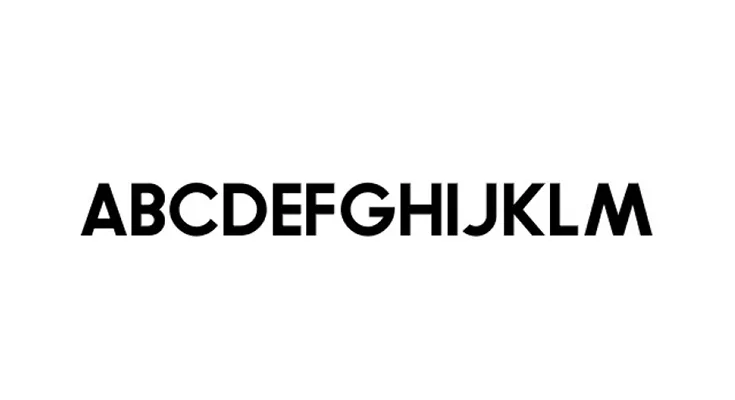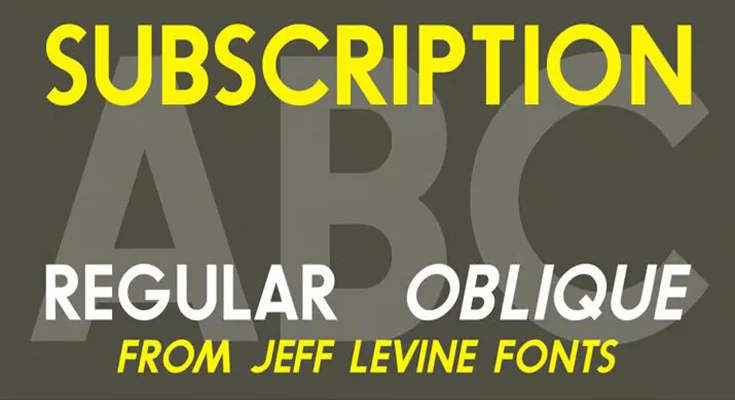
Here is another font family with a lot of versatility and possibility. Subscription JNL Font would be a great fit for other fonts or a display typeface.
This solid font was designed and released by Jeff Levine that is a prolific type designer in Florida, b. New York, 1952.
It has neat letters that can adjust to small text and large text. Simply, we can say that it can be used for headings as well as long text paragraphs.
This font family comes in two different versions including regular and oblique versions. This is really the best decision if you are looking forward to it.
With a balanced letterform and ample spacing, Subscription JNL Font ensures effortless legibility across different mediums, whether in print or on digital platforms. Its versatility shines through in both headings and body text, adapting seamlessly to diverse typographic needs.
You can use it for logo designs, banner ads, book covers, and even some t-shirt designs. In addition, it can be used for creating comic books, branding, social media posters, flyers, headers, titles, website templates, game development, and many other things.
Its subtle yet distinctive features create a memorable impression, making it an excellent choice for branding, editorial layouts, or websites.
Can’t you see this beautiful font on a book or album cover? They are versatile and versatile enough to be used in a wide range of projects.